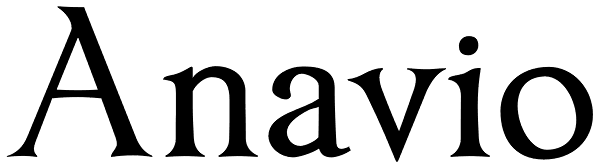
Anavio
Anavio is named in honor of the ancient Roman name of an English Derbyshire town. Anavio is a classically inspired family of Roman faces, emphasizing simplicity of form and elegance. Regular and Bold weights are offered, along with condensed forms...